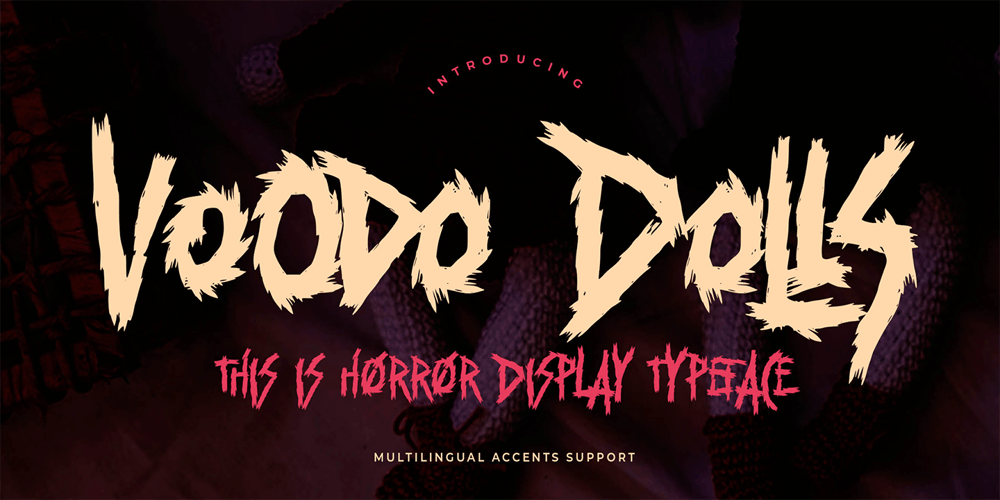
Voodo Dolls Font Family was designed by Abdul Malik Wisnu, Anang Fibriyanto and published by Gassstype. Voodo Dolls contains 1 styles and family package options. Hello Everyone, introduce our new product Font Voodo Dolls This Is Horror Display Typeface .This is a Textured Natural Style and Strong style with a Cool style and dramatic movement.This font Voodo Dolls is great for your next creative project such as logos, printed quotes, invitations, cards, product packaging, headers, Logotype, Letterhead, Poster, and perfect for logos & branding, events or anything that need handwritting taste.You can activate 8 Ligatures glyphs OpenType panel.